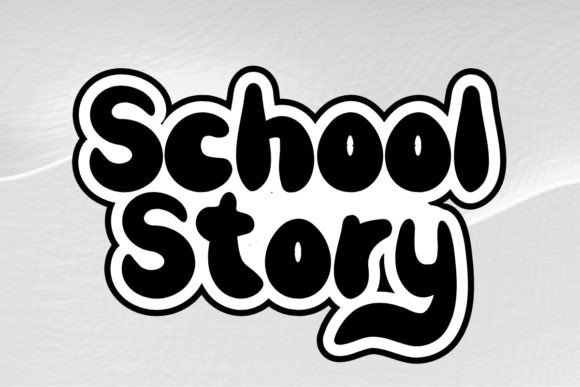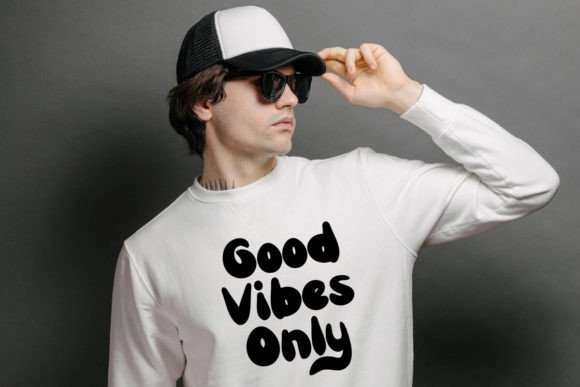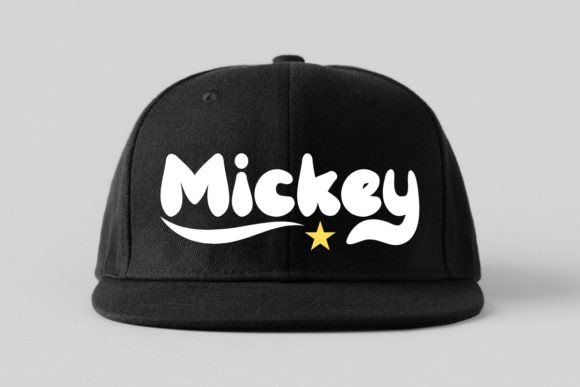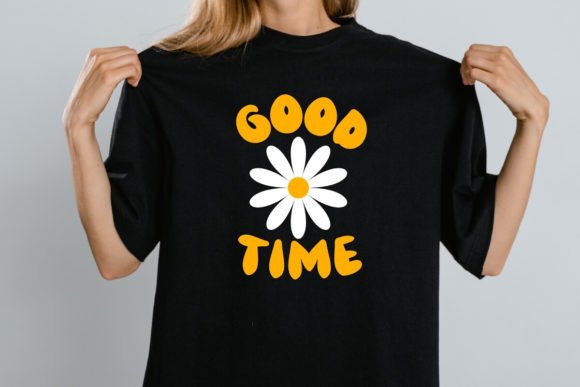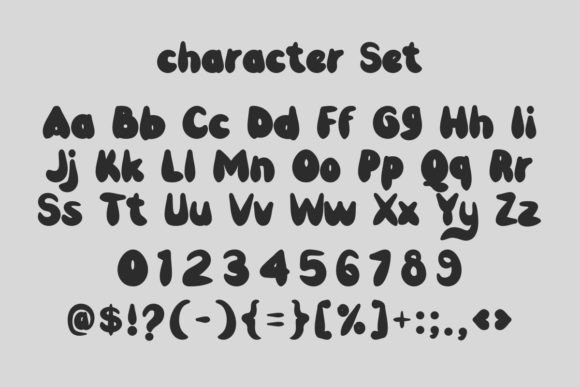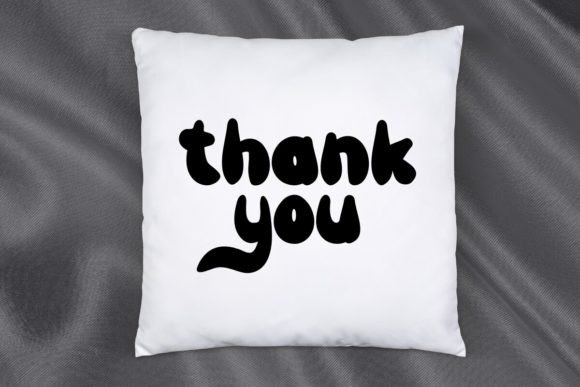
Introduction to Home Disney Font
Home Disney is a unique, bold, and cheerful font with a fun vintage feel.
Perfect for festive designs with a cute and retro touch, Home Disney is ideal for back-to-school projects, kids’ designs, birthday invitations, summer themes, vintage looks, t-shirts, crafts, stickers, sublimation, and more .
Key Features of Home Disney Font